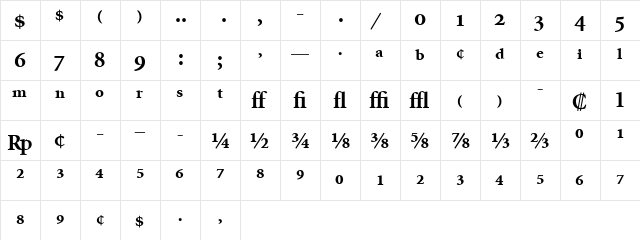
Minion Expert Bold Regular Font Preview
Minion Expert Bold Regular
Design Context for Minion Expert Bold Typeface
Minion Expert Bold takes a measured approach to typography — its balanced proportions and neutral character make it a reliable workhorse for both digital and print work. The heavy weight commands attention and anchors typographic hierarchies.